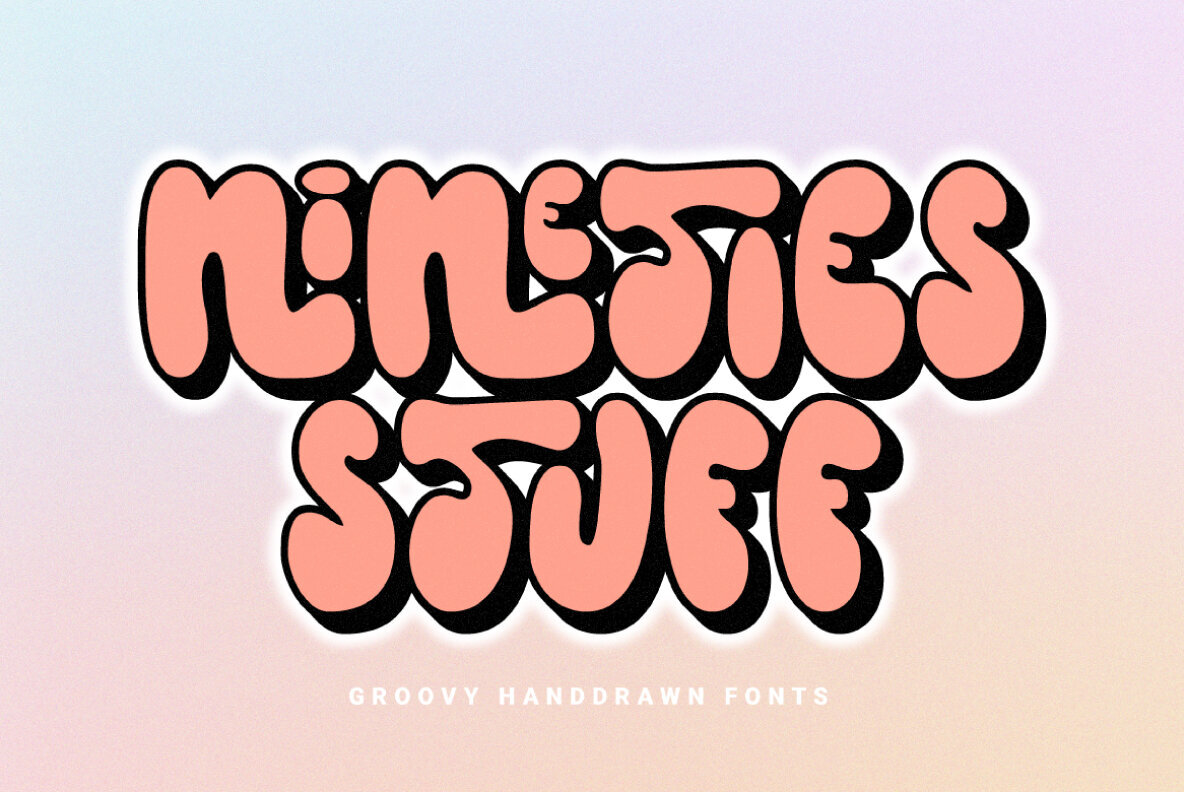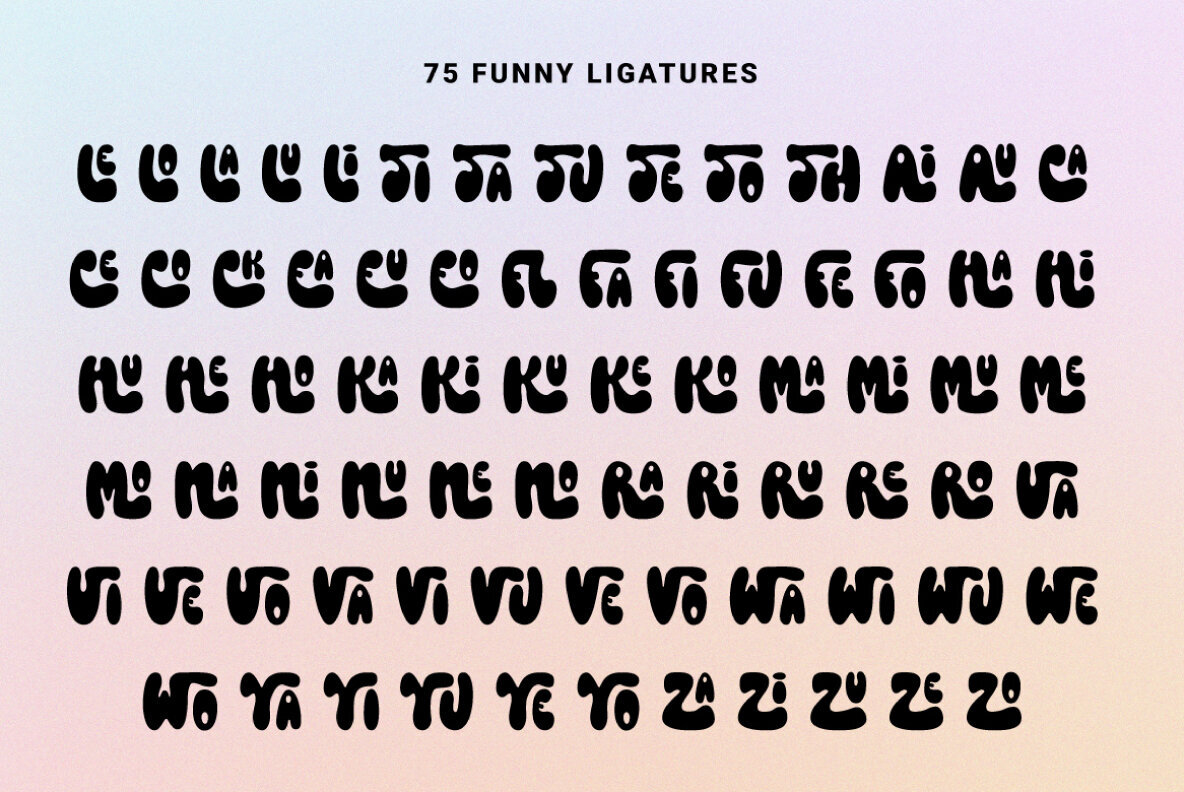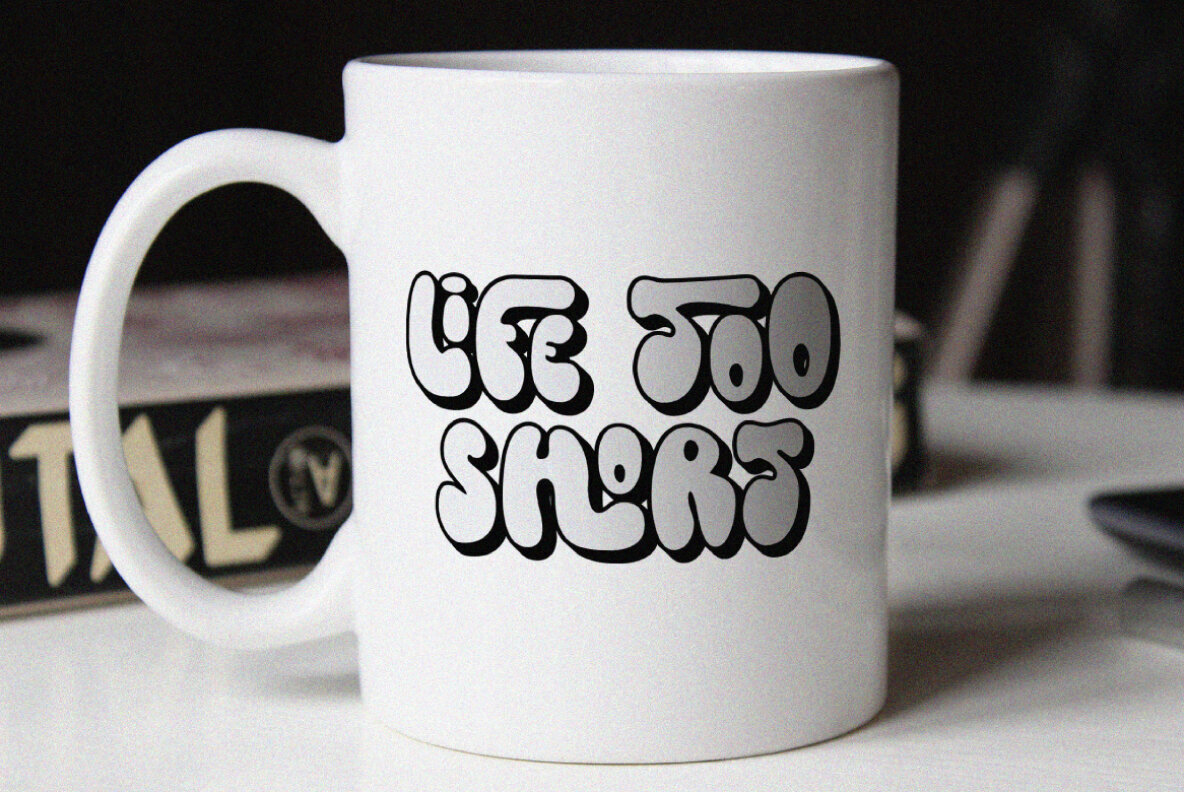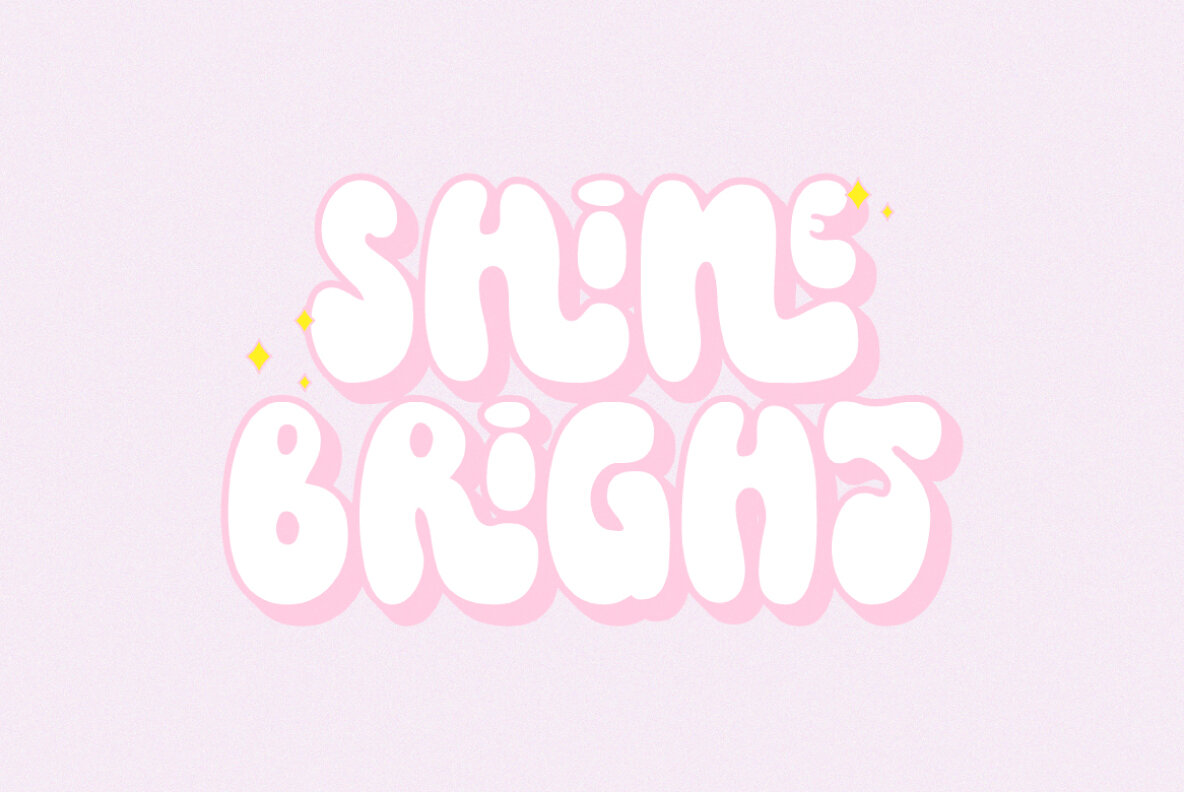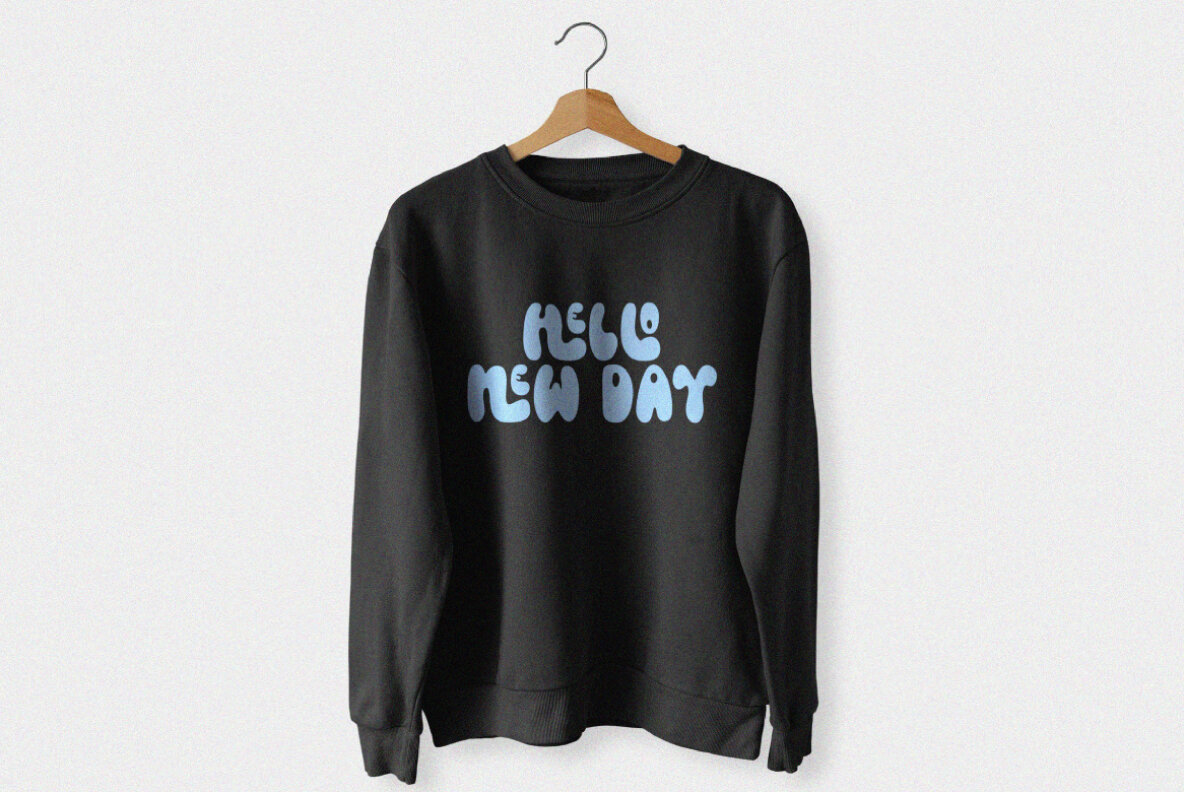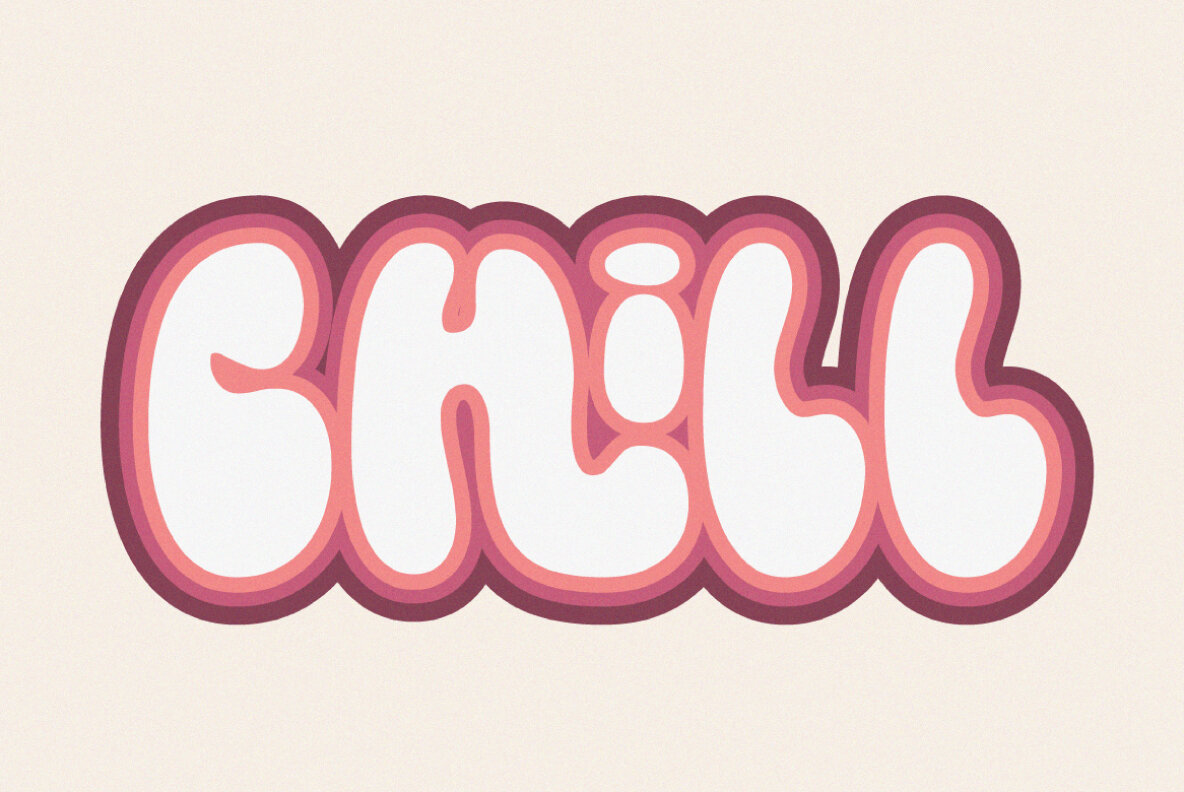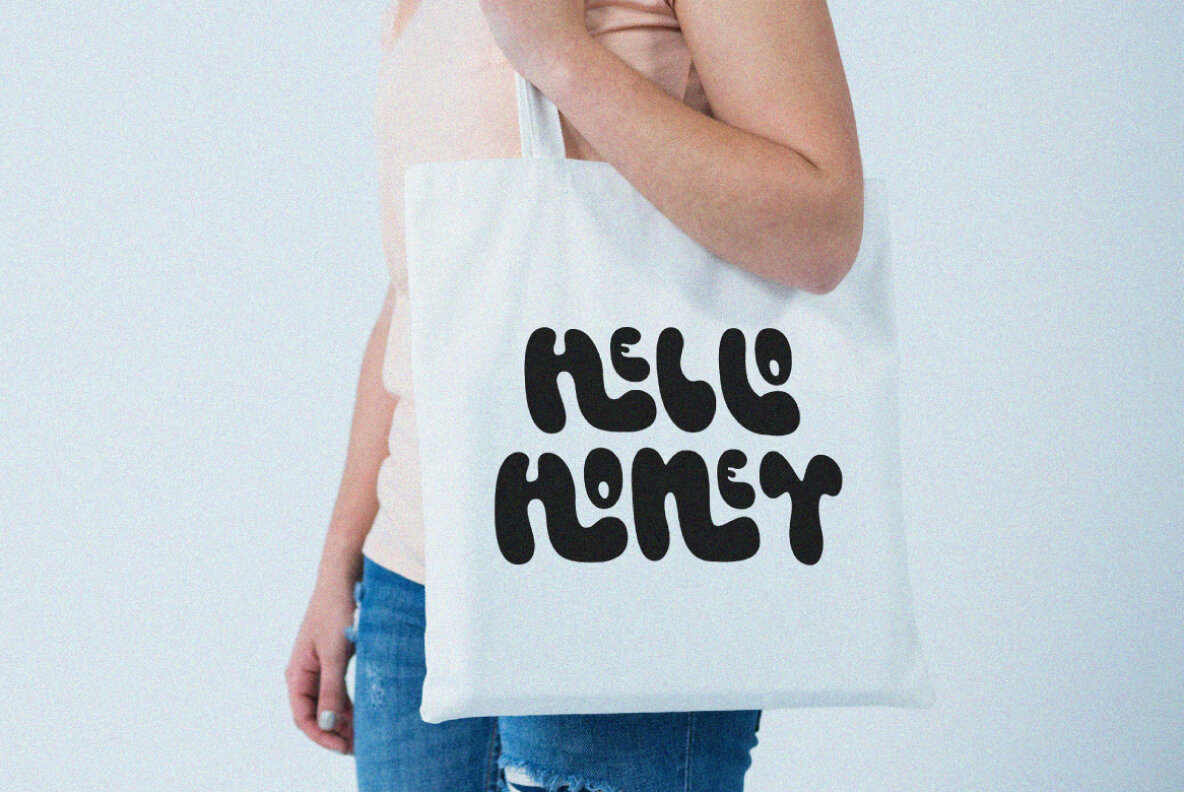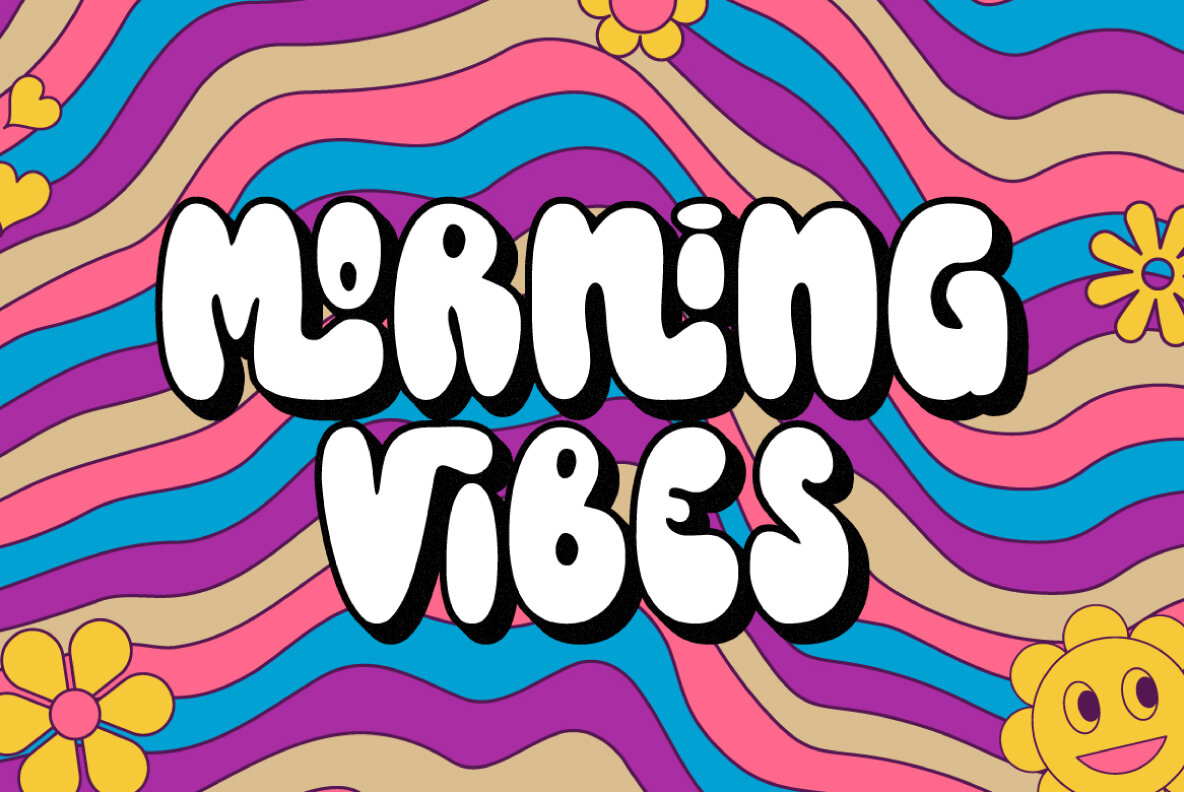
Nineties Stuff Font
Nineties Stuff is a groovy, hand-drawn font that brings a unique and playful touch to your designs. This font comes with 75 character ligatures, offering a creative twist to any project. It is available in two distinctive styles: regular and extrude, making it versatile for various design needs. Whether you're working on posters, merchandise, creative posts, logos, or branding, Nineties Stuff will add an engaging flair to your work.
This font includes a comprehensive set of features: uppercase, lowercase, numerals, punctuation, multilingual support, and ligatures. With its extensive multilingual capabilities, Nineties Stuff supports a wide range of languages, including Afrikaans, Albanian, Basque, Catalan, Danish, Dutch, English, French, German, Irish, Italian, Portuguese, Spanish, Swedish, Zulu, and many more. Embrace its broad language compatibility and intricate ligatures to create captivating and diverse designs that resonate with a global audience.